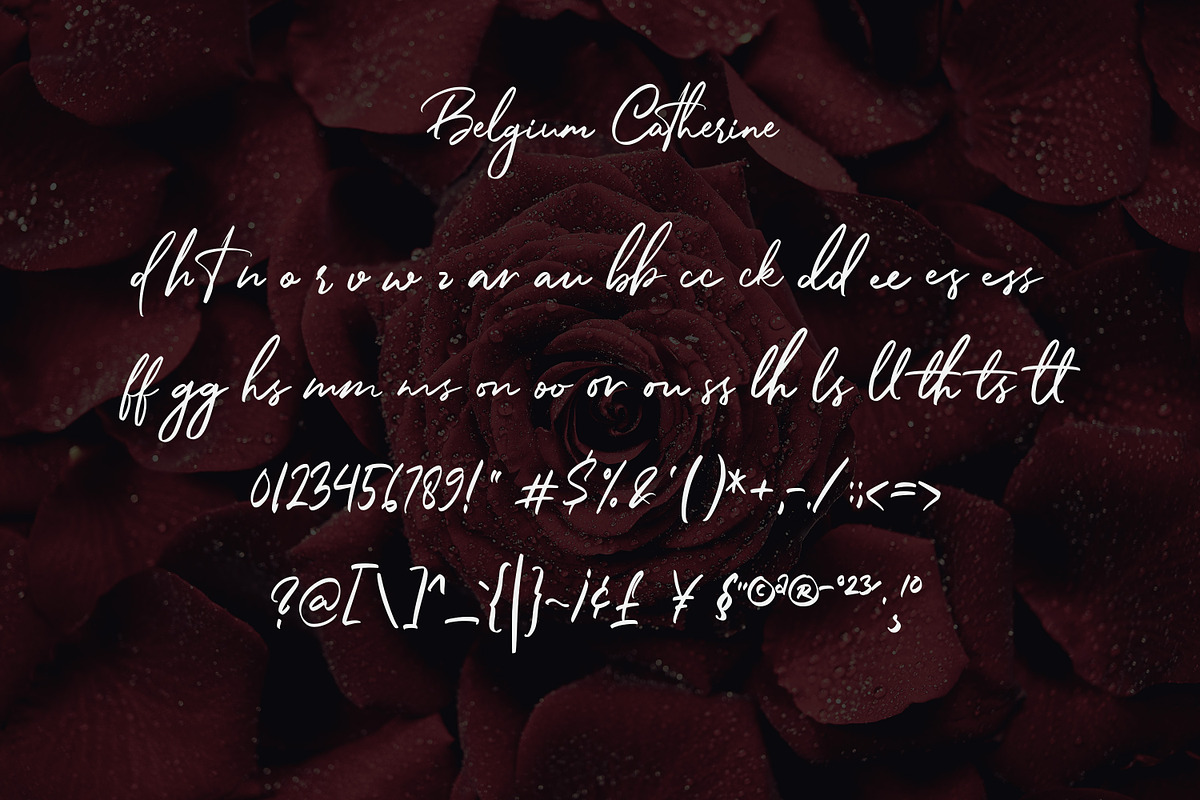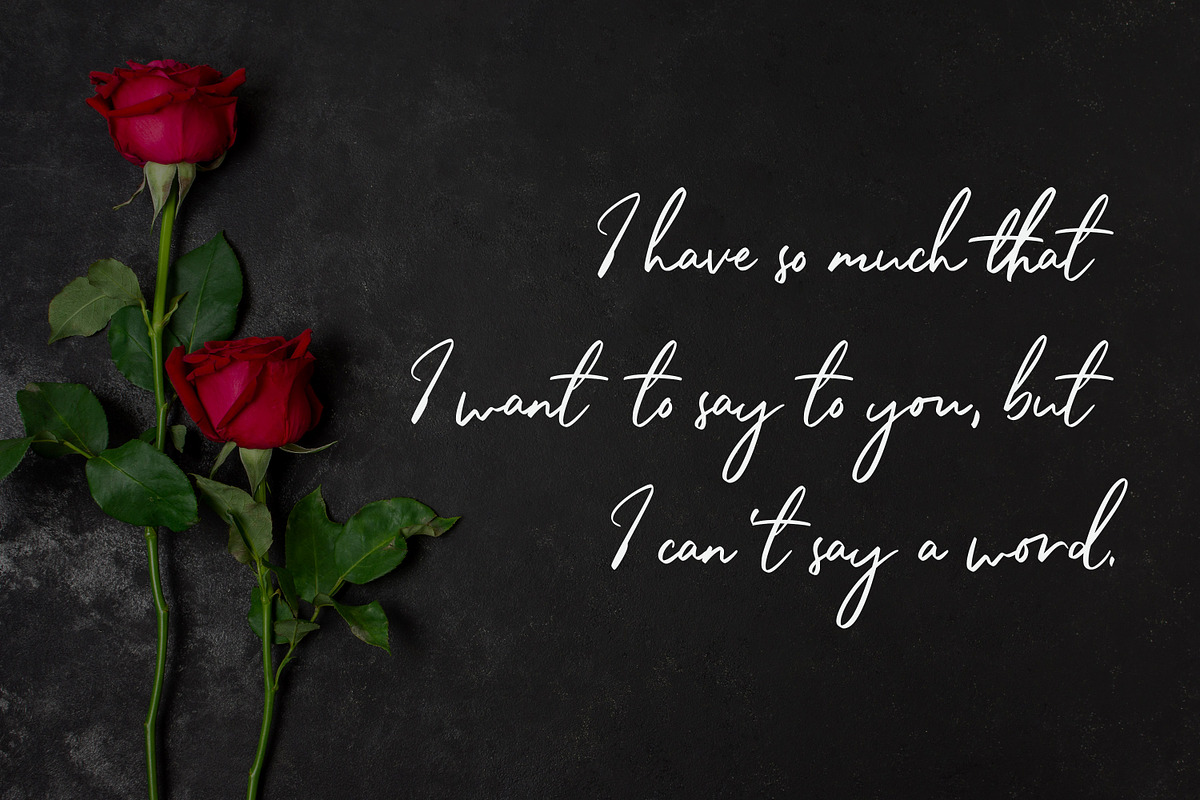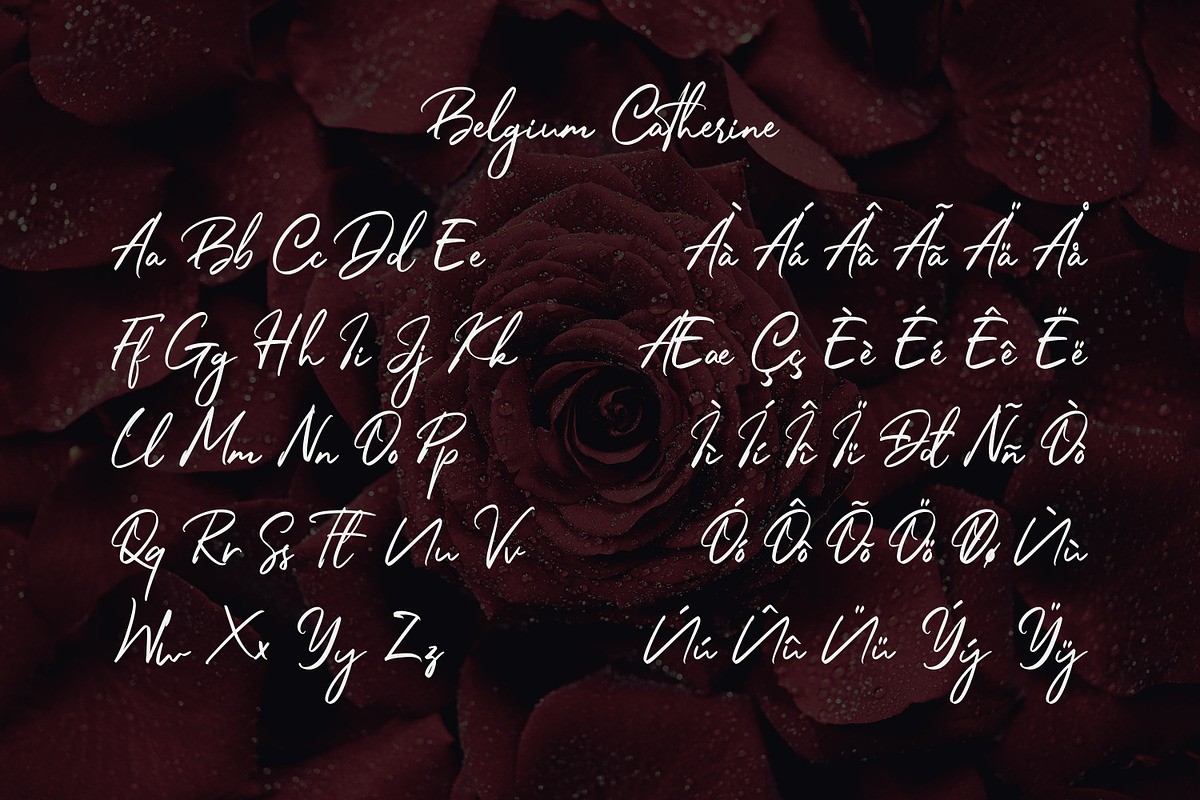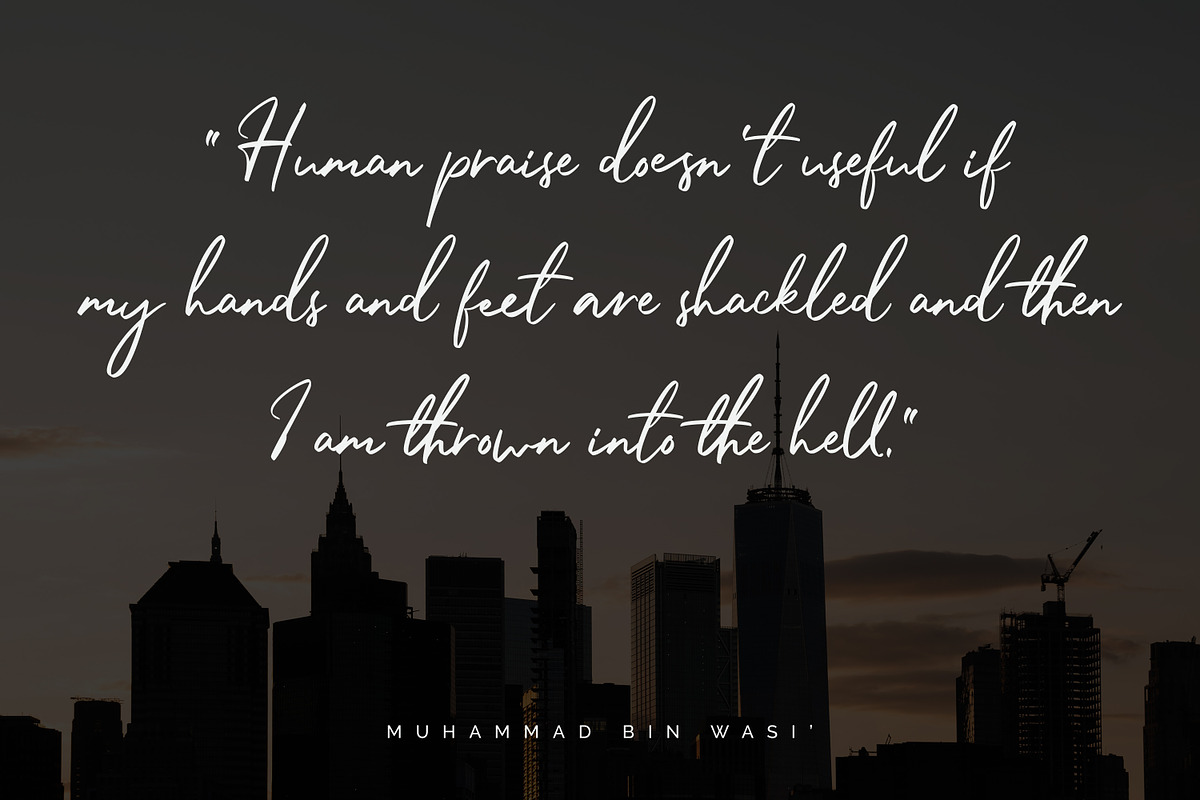
Belgium Catherine
Belgium Catherine - Handwritten Signature Font is a handwritten script font with a Signature Style and classy style, this font is great for your creative projects such as watermark on photography, and perfect for logos & branding, photography, invitation, watermark, advertisements,product designs, stationery, wedding designs,label ,product packaging, special events or anything that need handwritting taste.
Belgium Catherine is here to elevate your work to the highest level. Belgium Catherine comes with 2 Style Regular and Slant : uppercase letters, lowercase , numbers, punctuation, ligature, alternative lettersand multilingual support